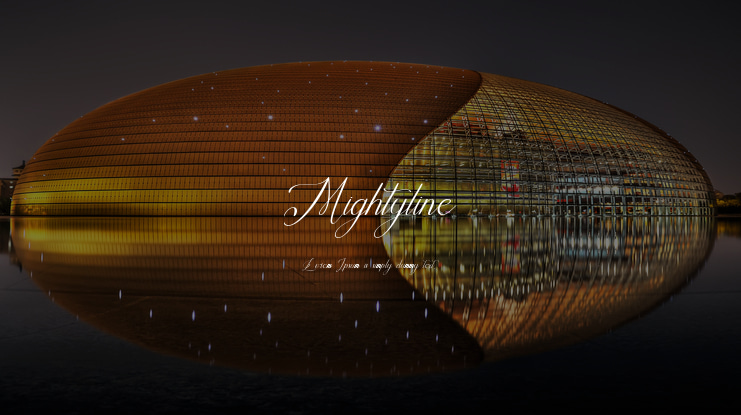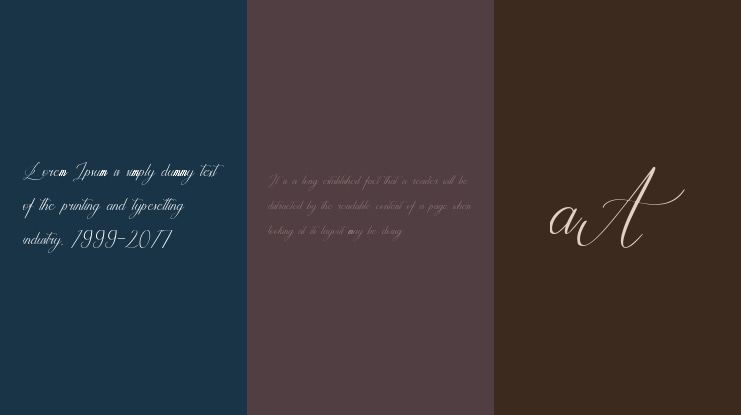
It’s a modern calligraphy font come with Swash and Alternate. Mightyline is perfect for product packaging, branding project, megazine, social media, wedding, or just used to express words above the background.